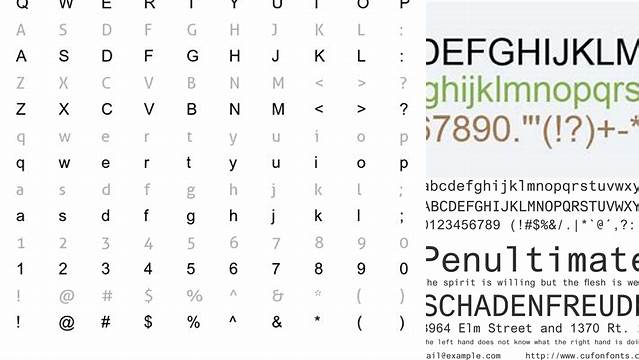
Arial MT Pro Regular Font: Free Download & Guide
Free Font Arial MT Pro Regular: A Classic Choice for Every Design
Hey guys, let's dive into the world of typography and explore a timeless classic: Free Font Arial MT Pro Regular. This font, a staple in the design world, is celebrated for its clean lines, readability, and versatility. But what makes this font so special, and why is it still a go-to choice for designers worldwide? Let's break it down. Arial MT Pro Regular, a member of the Arial family, is a sans-serif typeface that offers a modern and clean aesthetic. It's incredibly easy to read, making it perfect for both body text and headlines. This font's neutral appearance allows it to blend seamlessly with various design styles, from minimalist to corporate. The 'Pro' version often includes extended character sets and OpenType features, providing greater flexibility in your design projects. When you need a font that delivers a professional look without being overly complex, Free Font Arial MT Pro Regular is your friend. Its versatility is a key reason for its enduring popularity. Whether you're crafting a report, designing a website, or creating marketing materials, Arial MT Pro Regular adapts effortlessly to your needs. It's also readily available, often included as a default font in many operating systems and software packages. This accessibility makes it an excellent choice for designers and non-designers alike. Free Font Arial MT Pro Regular helps you get the job done, whether it is formal or casual, simple or intricate. From office documents to artistic projects, this font provides a consistent and reliable visual experience. The simplicity of its design helps it maintain a broad appeal. The design itself is neutral, which avoids competing with other elements in your project. Therefore, the font remains legible and doesn’t distract the reader. The font's neutral design makes it suitable for a wide range of applications. Its clean, uncluttered appearance makes it a good choice for both print and digital media. Free Font Arial MT Pro Regular gives you a solid base for your design, and it's not going out of style anytime soon.
Understanding the Characteristics of Arial MT Pro Regular Font
Alright, let's get into the nitty-gritty. Free Font Arial MT Pro Regular is all about simplicity and clarity. It's a sans-serif font, which means it lacks the small decorative strokes, or serifs, found at the ends of some letterforms. This design contributes to its modern and clean appearance. The letters are designed to be very readable at different sizes, making it ideal for both body text and headlines. The letterforms are generally uniform in width, giving a balanced look. This helps the font maintain its readability and consistency across text. The font's x-height, or the height of the lowercase 'x', is relatively tall. This feature increases readability, especially in smaller sizes, where it is helpful in distinguishing different letters. The spacing between letters and words is well-balanced, preventing the text from appearing cramped or too spread out. This contributes to overall readability and reduces eye strain. The weight of the font is considered 'regular', meaning it's not too bold or too light. It’s just right for general use. The simplicity of the design also makes it highly compatible with different design styles and applications. Because it's readily available on many systems, Free Font Arial MT Pro Regular is also a safe choice, ensuring your text looks the same regardless of where it is viewed. Whether you're working with websites, documents, or presentations, this font provides a versatile and dependable solution for your typography needs. The basic geometry of Free Font Arial MT Pro Regular allows it to mesh well with other elements on the page, without dominating the design. This makes it a reliable choice when you want the focus to be on the content rather than the font itself. The consistent letter shapes, combined with a regular weight, lend a sense of order and professionalism to any text.